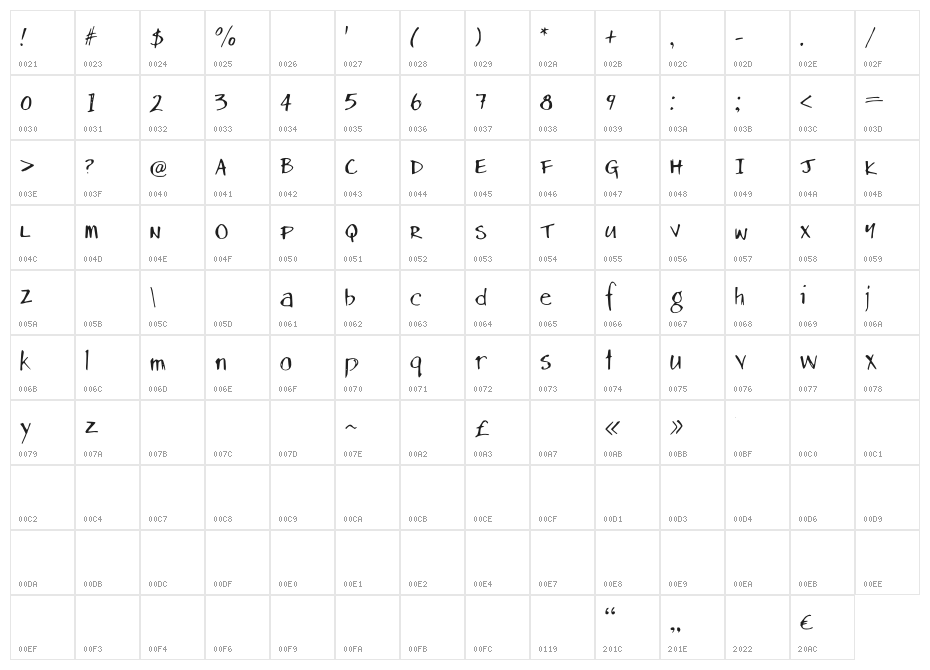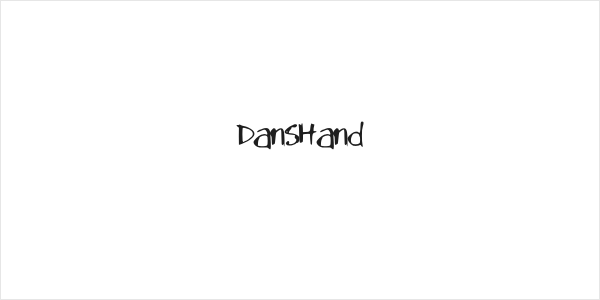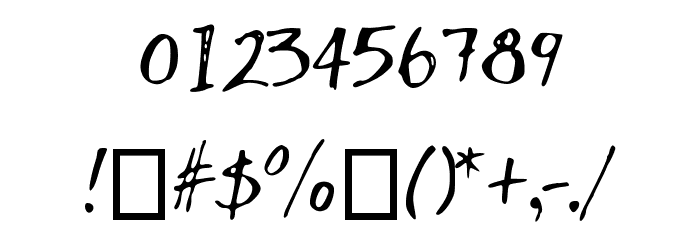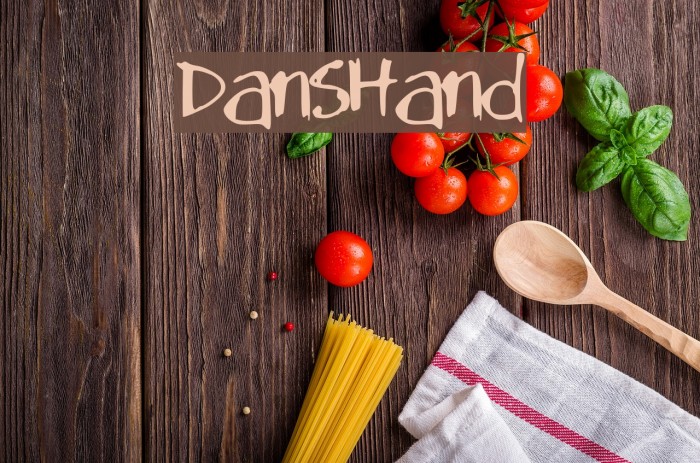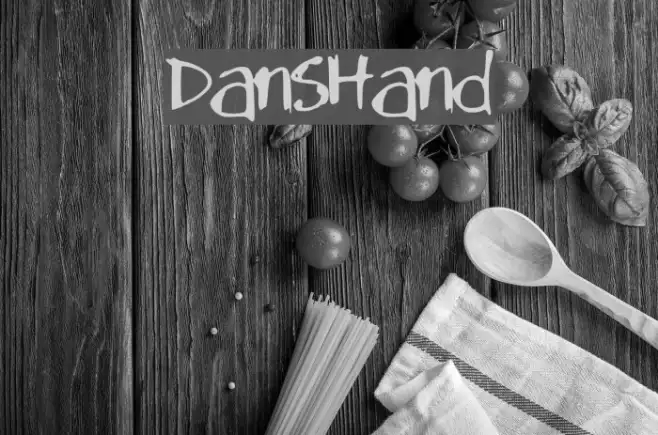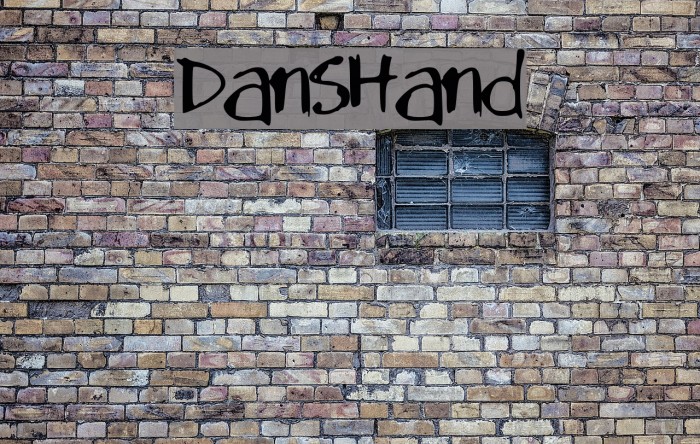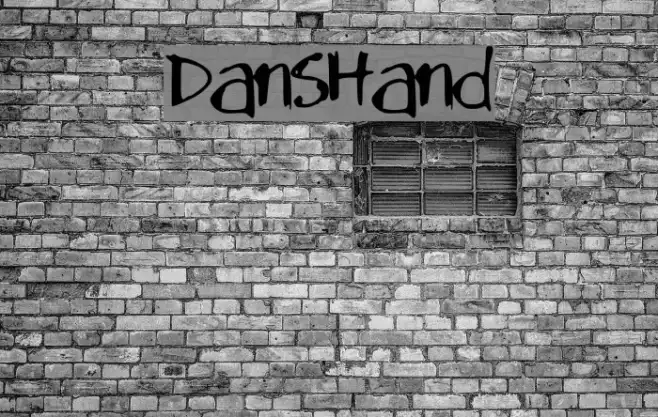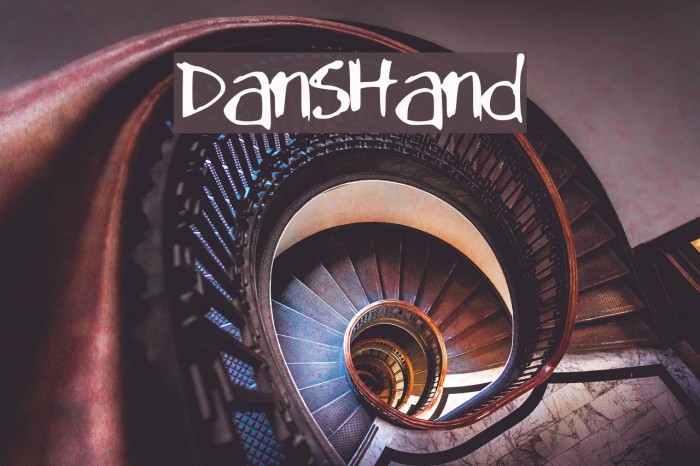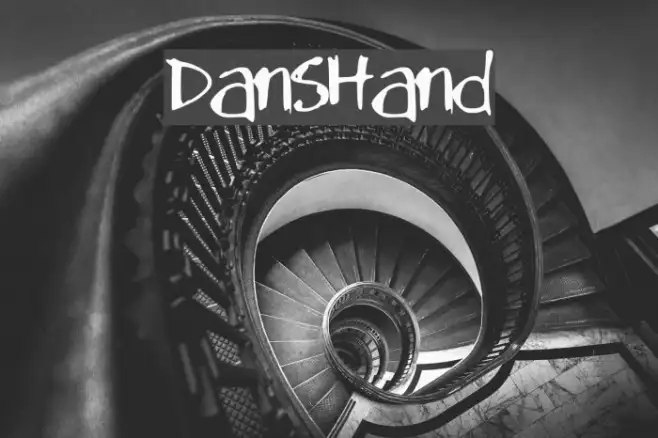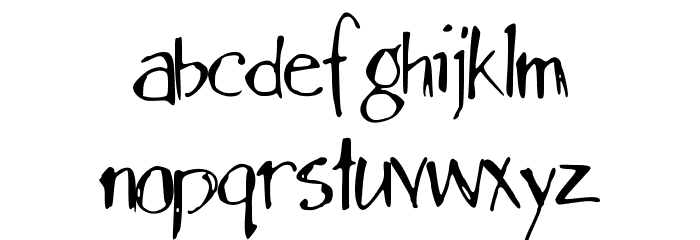
DansHand Font
DansHand Description
This font exhibits a playful and casual handwritten style, characterized by its uneven strokes and slightly irregular letterforms. The uppercase letters are bold and dynamic, while the lowercase letters maintain a consistent flow, adding to the font's informal charm. The numbers and special characters follow the same whimsical design, making it suitable for projects that require a personal touch. The overall appearance is lively and energetic, with a touch of spontaneity that mimics natural handwriting.
| Proposed Projects | Ideal for greeting cards, invitations, personal branding, and creative projects that require a friendly and approachable feel. |